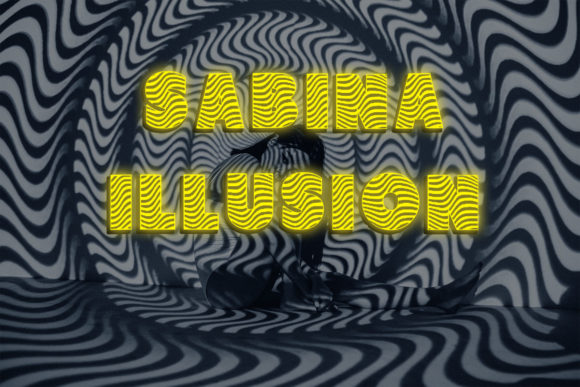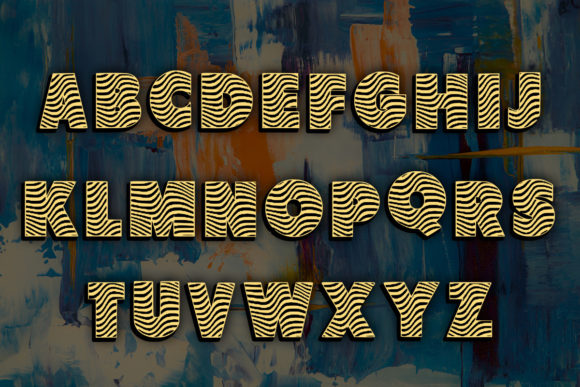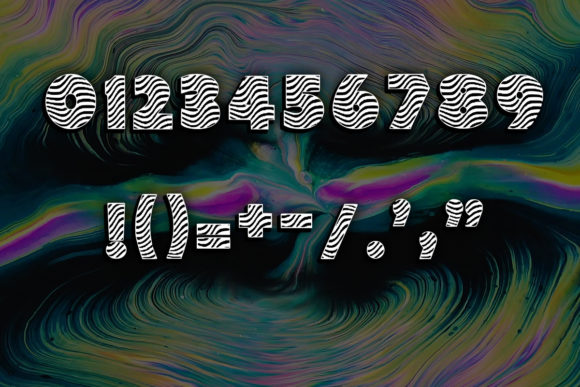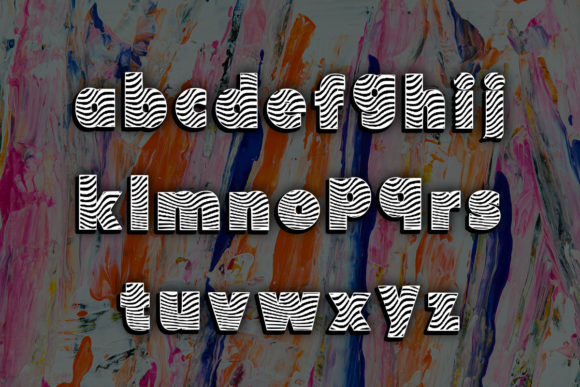
Sabina Illusion
About Sabina Illusion Font
Sabina Illusion is a cool, zebra like decorative font. It will look stunning on any poster flyer or print.Use this font for your designs and explore its endless possibilities.